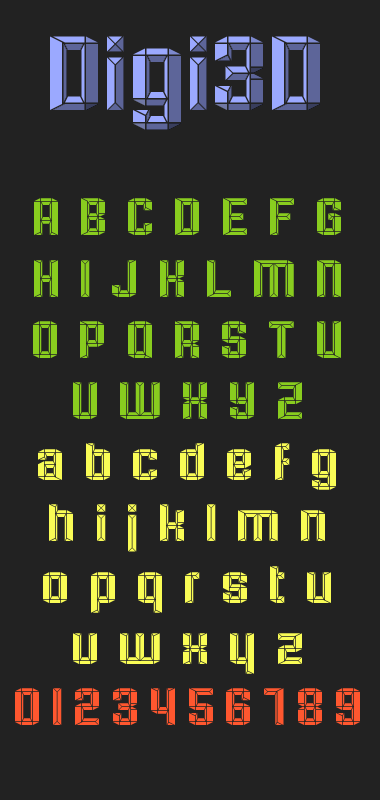
Cool work and perfect use of fontstructor!
I like how it looks uncolored (black and white).
Maybe add an alternative "y", with the descender like in "g"?
Awesome.
Also could be jewel cuts.
This. Is. Amazing. 10/10
Precious!
So cool! 10/10
A real gem! 10/10
@phate888 - Wonderful geometry here! The "B" has some unnecessary/extraneous bricks where the horizontal lines meet the top left and bottom left diagonals.
@Goatmeal: Thanks, good eye, i edited it.
Very nice beveled font. They're getting more and more popular. Your solution of geometry is brilliant. 10/10
Congratulations! FontStruct Staff have deemed your FontStruction worthy of special mention. “Digi3D” is now a Top Pick.
This excellent! Well displayed by your sample. 10/10+